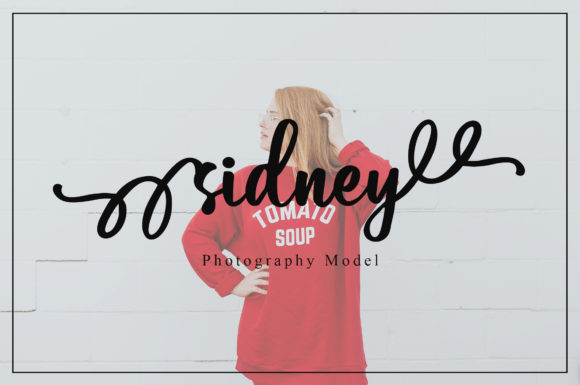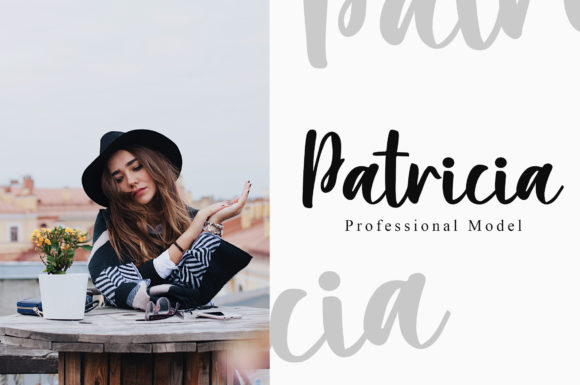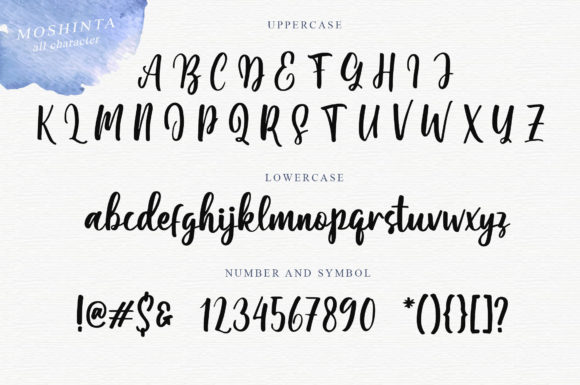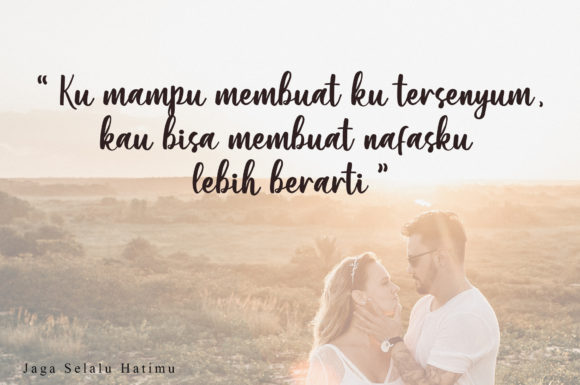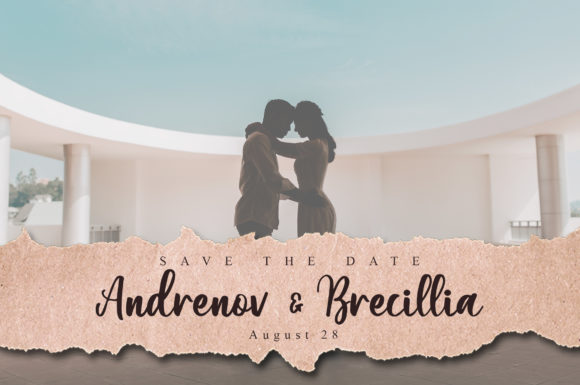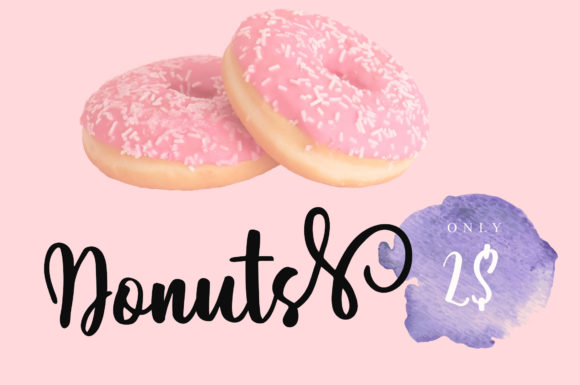
Introduction to Moshinta Font
Moshinta is a unique and smart handwritten font with a lovely twist.
It will add a lovely authenticity to any design project .
Key Features of Moshinta Font
Why Choose Moshinta Font?
Moshinta Font offers exceptional quality and versatility, making it a valuable addition to your design toolkit. Whether you’re creating for personal projects or commercial use, Moshinta Font delivers professional results.